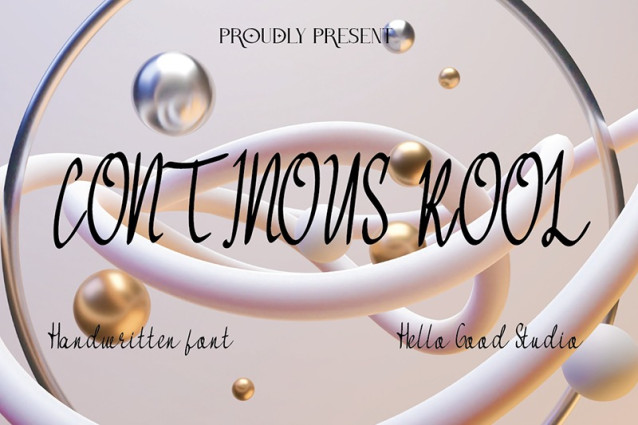
Continous Roll Font
Continous Roll Font is a simple and friendly handwritten font. Its natural and unique style makes it incredibly fitting to a large pool of designs. The only limit is your imagination!